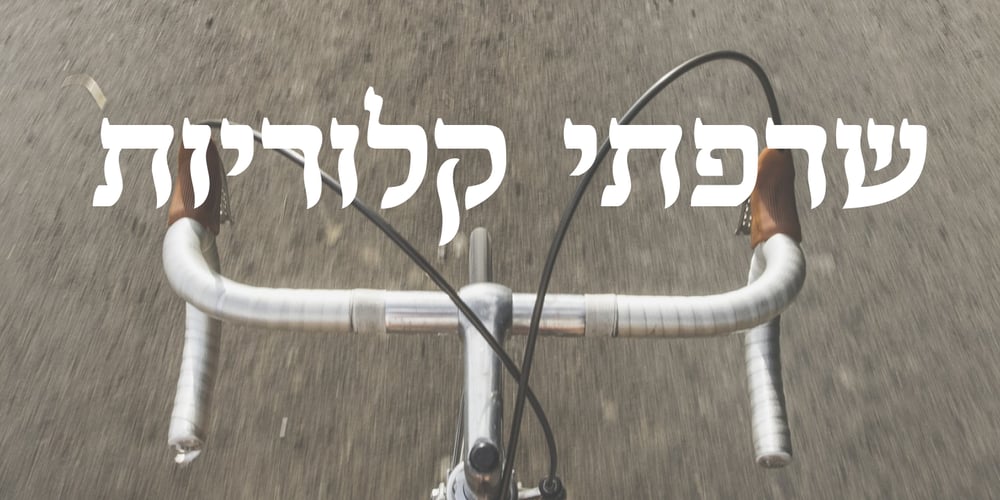
Mishkenot MF
Mishkenot MF font
Mishkenot MF Font Family was designed by Eliyahu Fried and published by Masterfont. Mishkenot MF contains 1 styles and family package options. Inspired by old engraving and scribes, this font is unique by its flow and contrast, enabling traditional typeface gain a new and clear flow and rhythm.